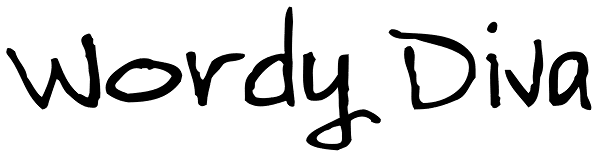
Wordy Diva
Take a gander at this jaunty, journal-inspired handwriting style. Wordy Diva was drawn in 1995 by Lisa Bralts and faxed to Chank Diesel. The fax was converted to font format, and it soon became one of Chank's most popular handwriting fonts. You can...